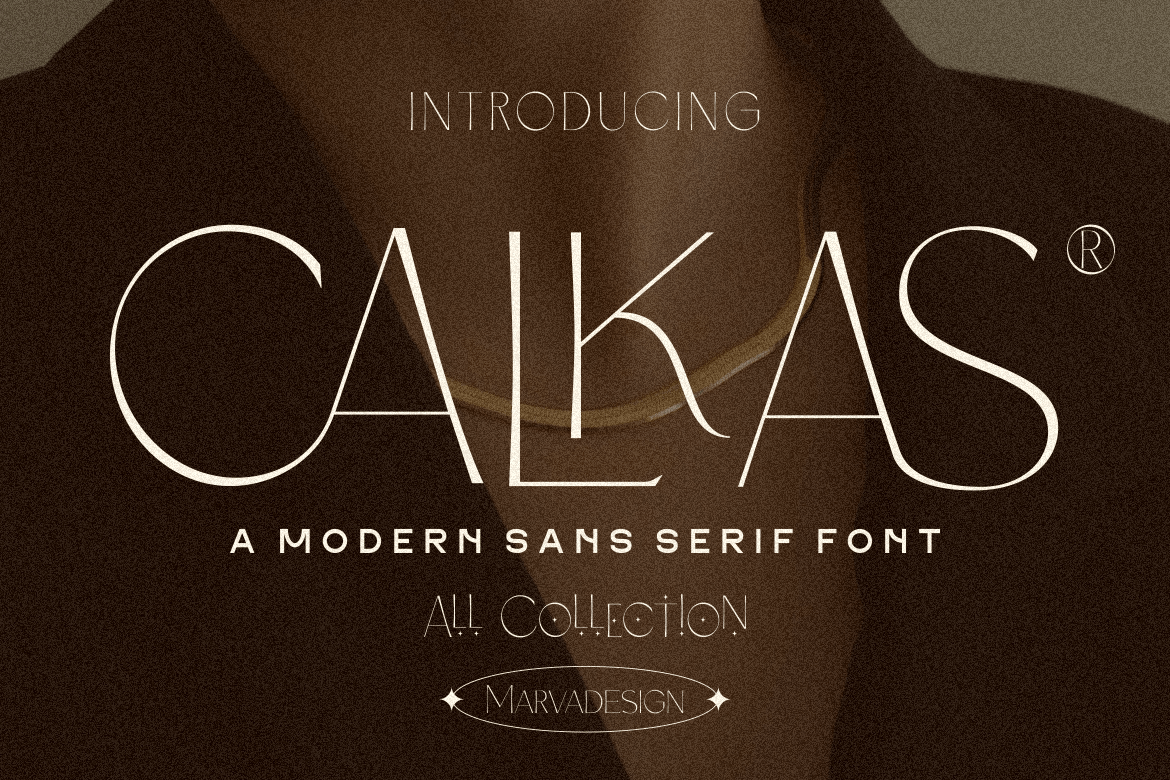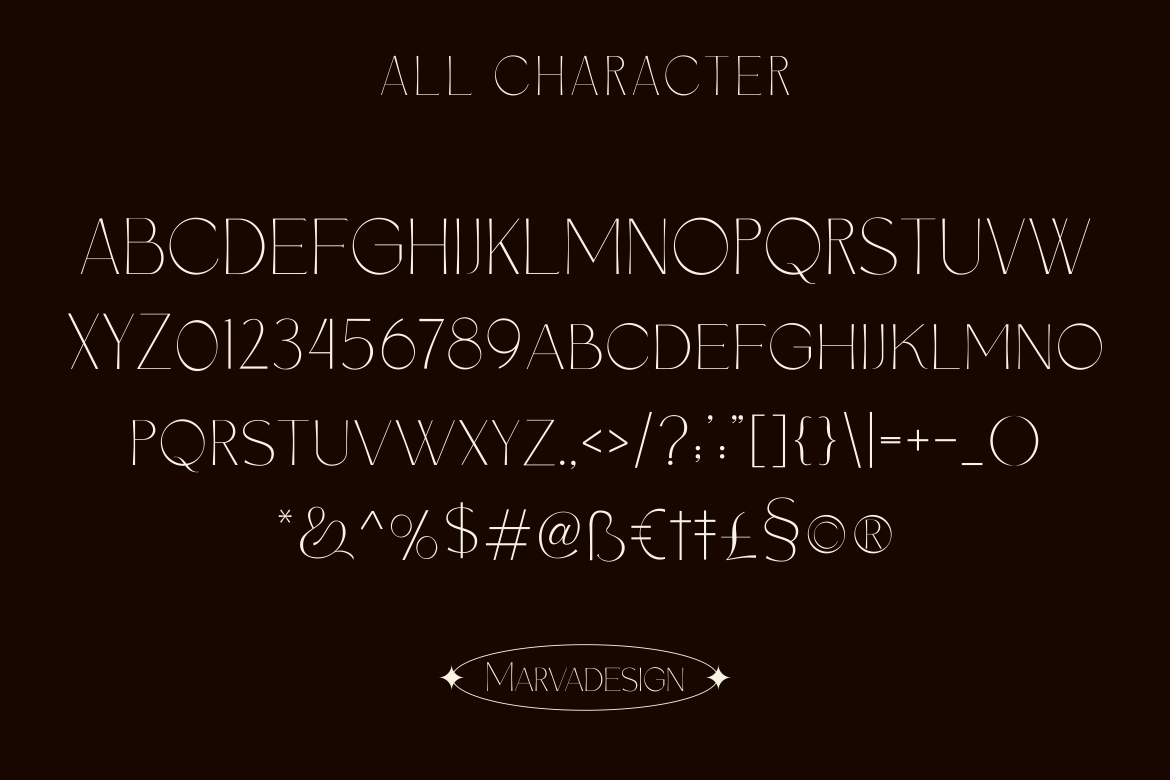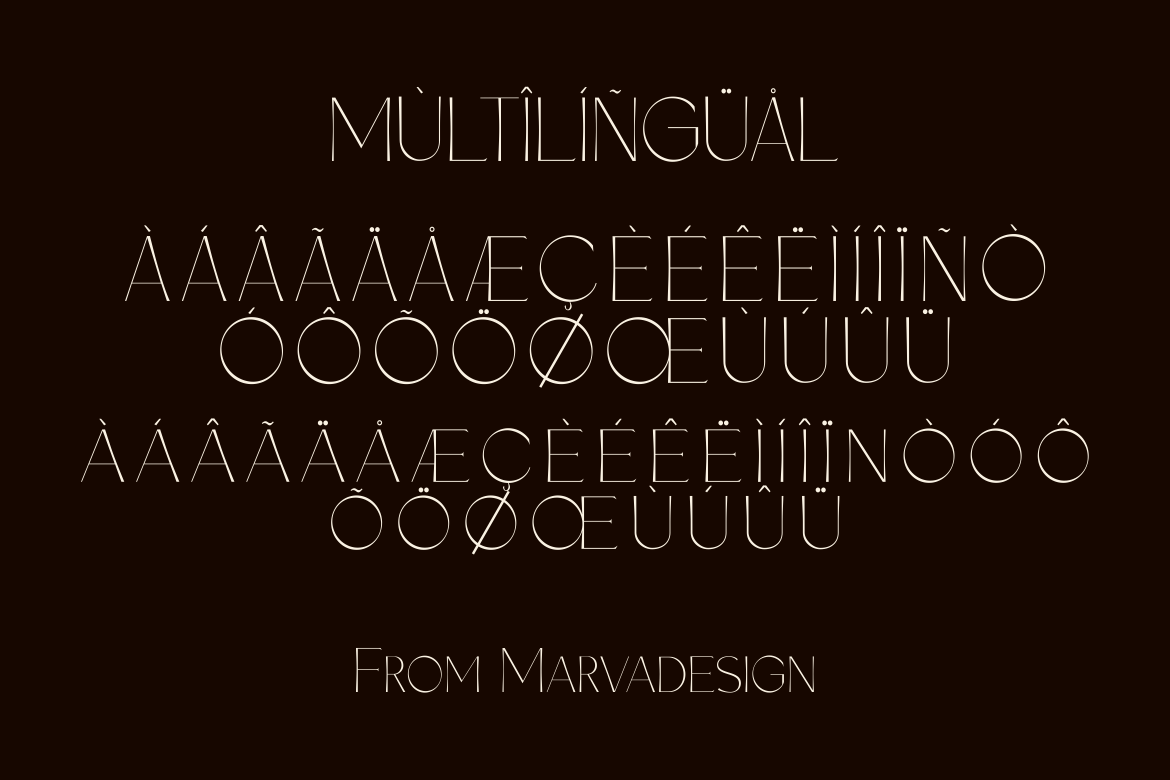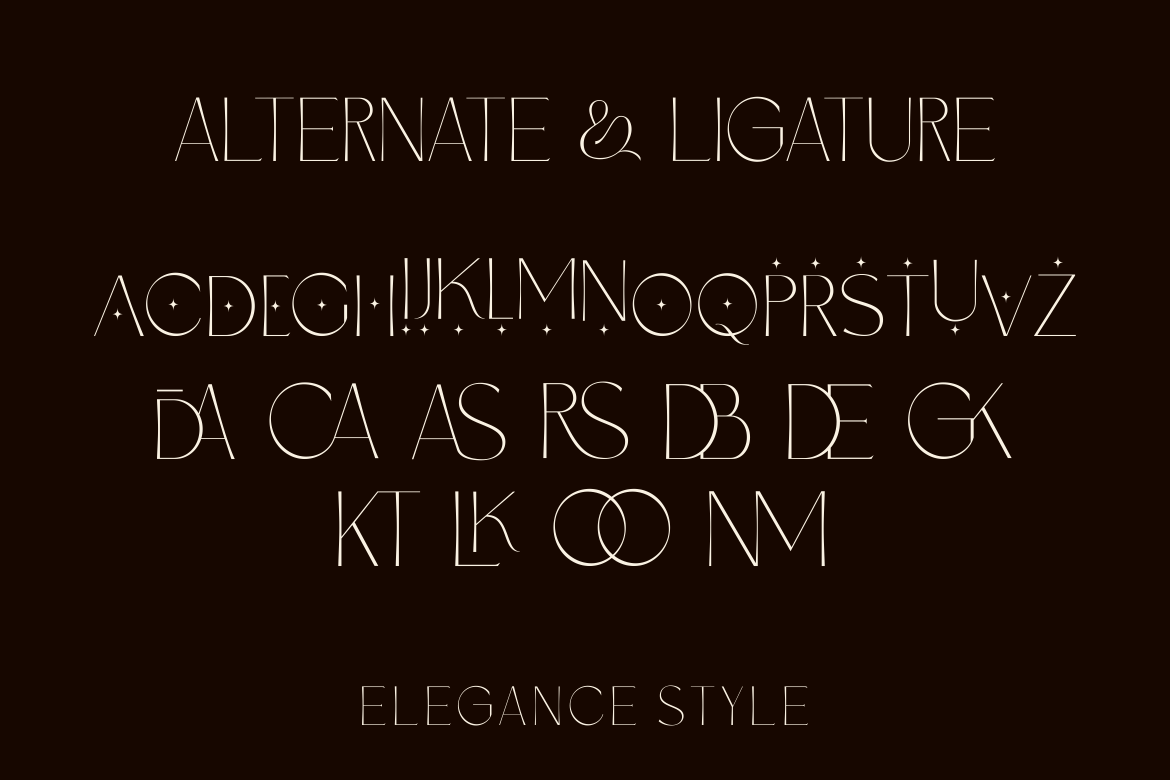
Calkas
Font Family by Marvadesign
Calkas is a modern sans-serif font that exudes elegance, sophistication, and high-fashion aesthetics. It features a unique blend of geometric structure and delicate strokes, creating a striking visual contrast that draws the eye. The letterforms are tall and slim, with extended ascenders and descenders that lend a refined, graceful silhouette to the typeface. What sets Calkas apart is its stylish alternates and creative ligatures—each crafted with care to enhance typographic harmony and artistic expression. The font includes a complete set of uppercase letters, numerals, punctuation, symbols, and special characters, making it versatile for a wide range of design projects. From branding, editorial layouts, luxury packaging, to fashion magazines, Calkas brings a touch of glamour and modernism. The thin, high-contrast lines and unexpected curves contribute to its avant-garde personality, while still maintaining readability and balance. Overall, Calkas is perfect for designers seeking a font that is both chic and distinctive.